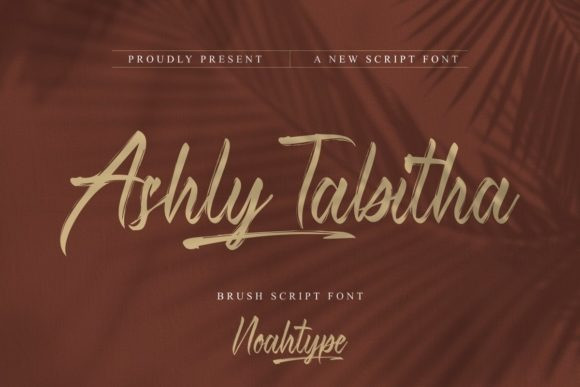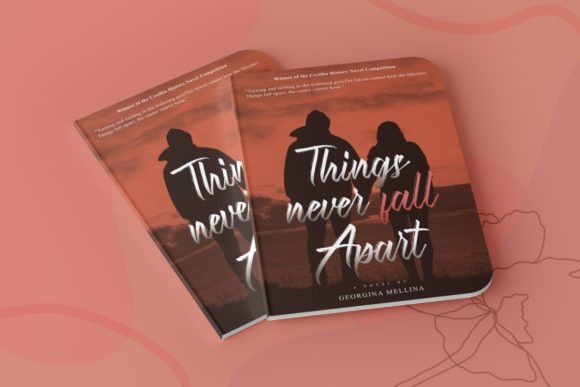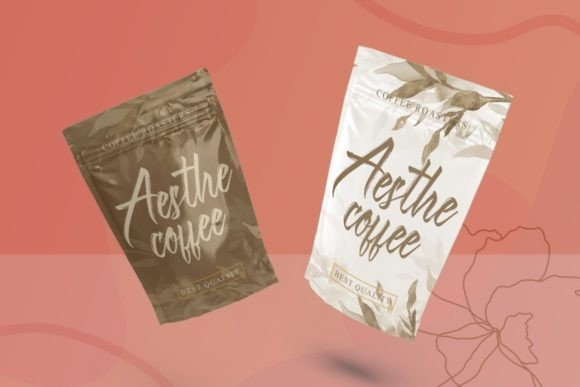
Ashly Tabitha Font
Ashly Tabitha is a textured brush calligraphic font with a modern character style. This font is carefully crafted to look as close to a natural sketched, and as a result, it can create the perfect combination on each glyph. Ashly Tabitha is PUA encoded which means you can access all of the glyphs and swashes with ease!